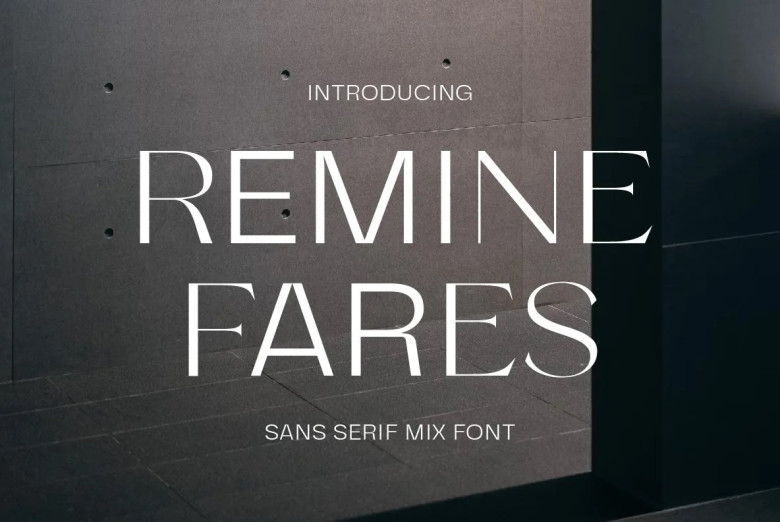
Remine Fares Font
Remine Fares is a sans-serif font mix that combines the styles of sans serif and serif fonts into one seamless font style, offering endless design and creative potential through this blend.
Remine Fares Mix Font’s sans serif component offers a modern, minimalist, and clean aesthetic, featuring bold letters with straight lines that create an eye-catching impression. Perfect for projects requiring modern simplicity such as bold titles or texts that need to be simplified!
Remine Fares Mix font allows you to seamlessly combine sans serif and serif font styles in one font for an attractive design composition that combines both styles. Use sans serifs for creating easily read text or highlighting important information while serifs add artistic flourish and provide visual interest and create focal points within designs.
Remine Fares Sans Serif Font